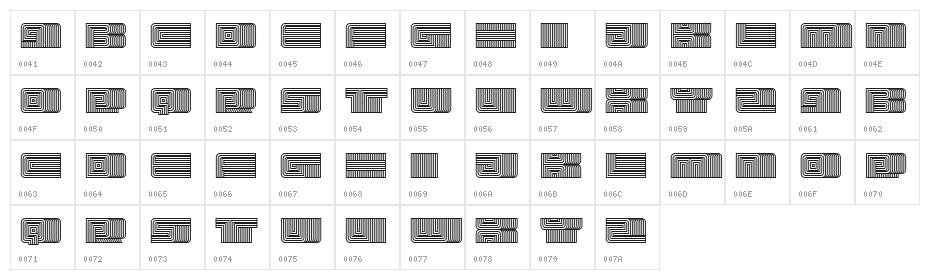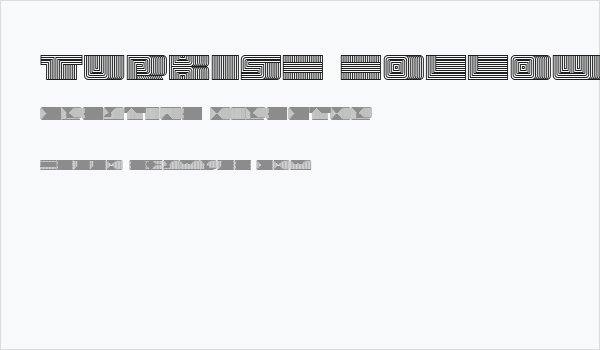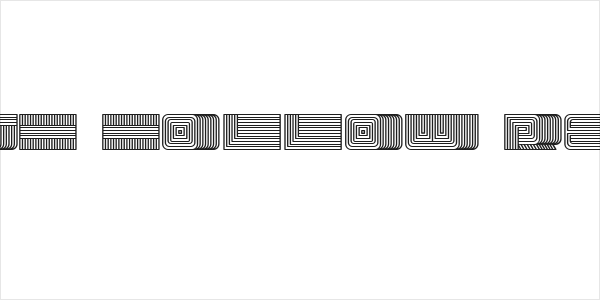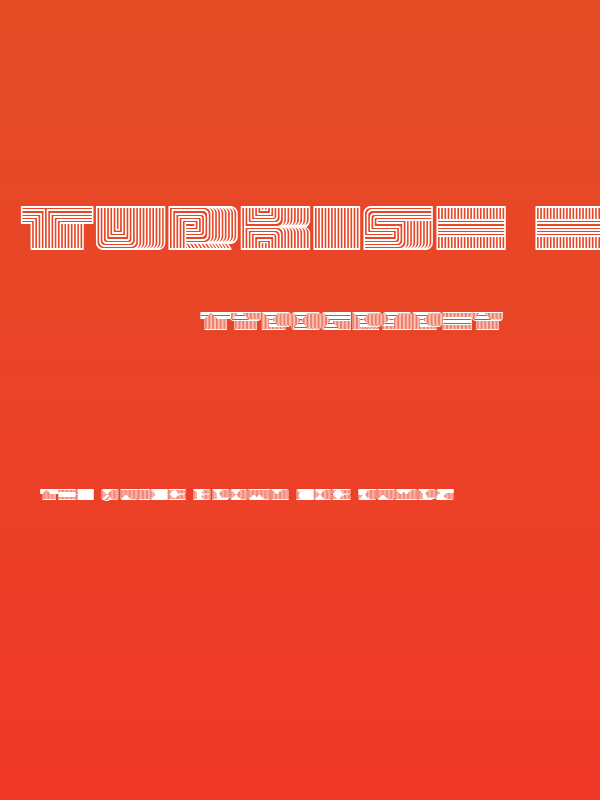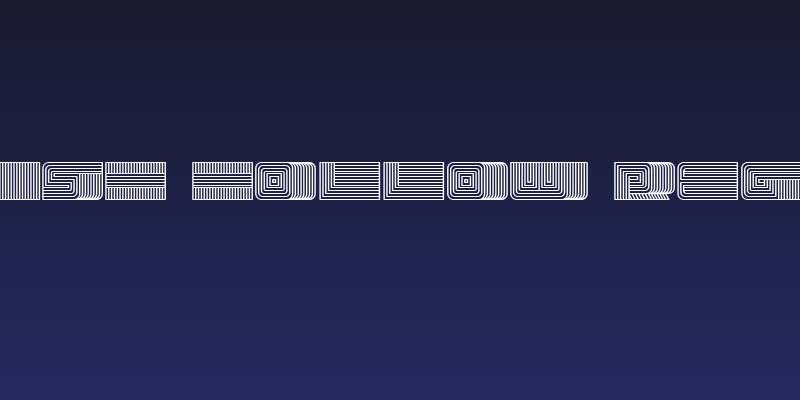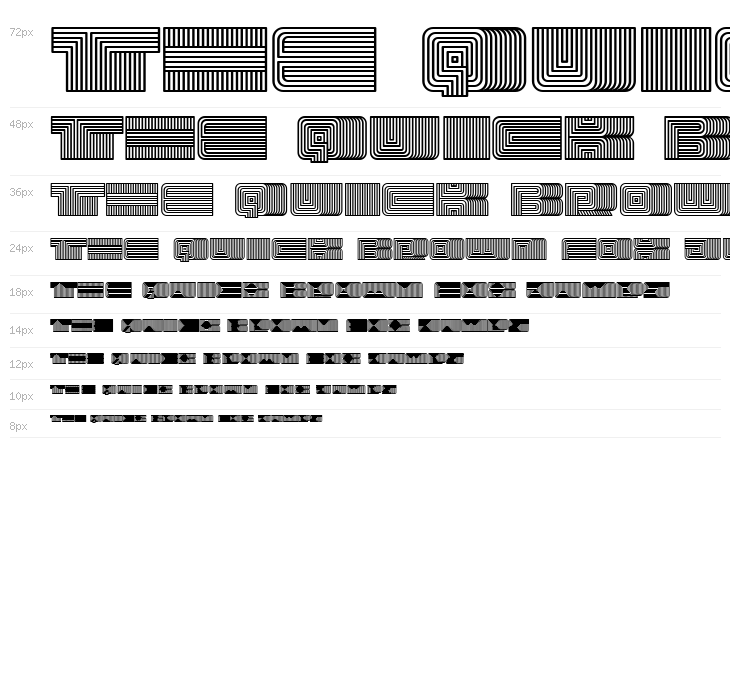
Turkish Hollow Regular Font
Turkish Hollow Regular Description
This font features a unique, geometric design with hollow, maze-like patterns within each character. The letters are constructed with multiple parallel lines that create a three-dimensional effect, giving it a modern and artistic appearance. The uppercase and lowercase letters share the same intricate style, maintaining consistency throughout the character set. Numbers and special characters are also designed with the same hollow, lined structure, making them visually cohesive with the alphabet. The overall look is striking and eye-catching, suitable for creative and bold design projects.
| Proposed Projects | Ideal for posters, album covers, branding, and any project requiring a bold, artistic statement. |